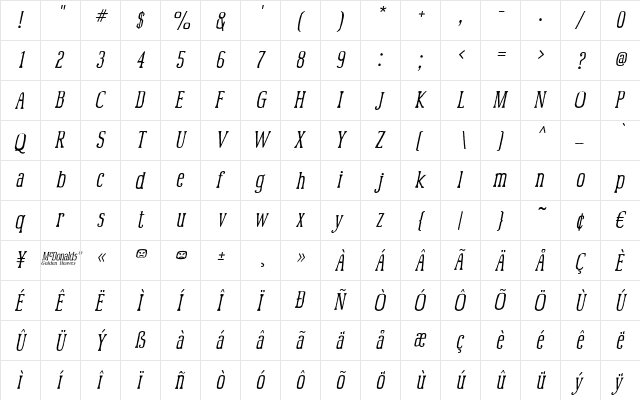
McFood Poisoning 2 Regular
Design Context for McFood Poisoning 2 Typeface
McFood Poisoning 2 takes a measured approach to typography — its balanced proportions and neutral character make it a reliable workhorse for both digital and print work.